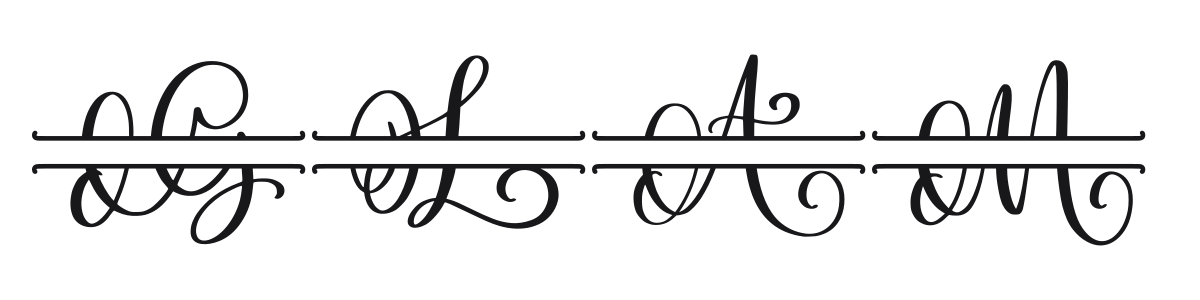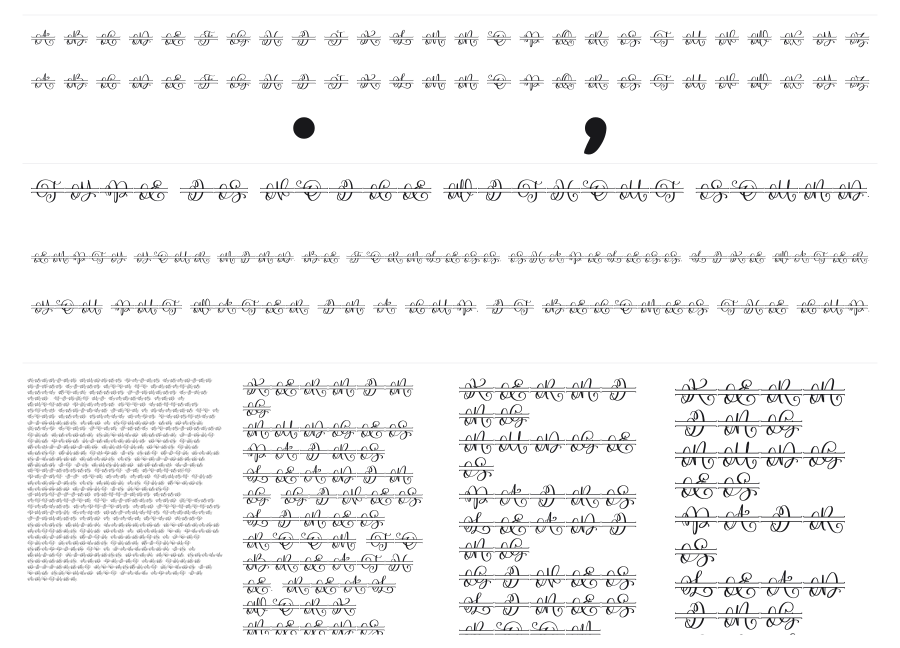
Glam
Glam is a decorative monogram font built around interlocking script capitals with elaborate calligraphic flourishes. Each character is designed to interweave with its neighbors, producing the layered, medallion-style look familiar from engraved wedding stationery and luxury branding. The fine hairline strokes and sweeping swashes give it a formal, almost Victorian elegance.